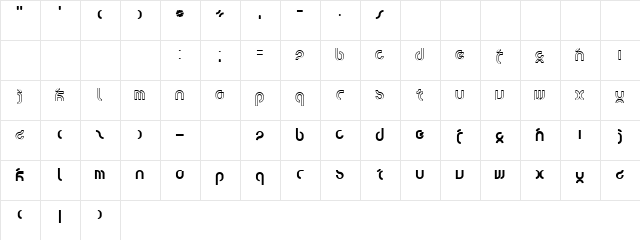
tsunami Regular Font Preview
tsunami Regular
Design Context for tsunami Typeface
tsunami is a composed and adaptable typeface that performs quietly and consistently across a wide range of design contexts.